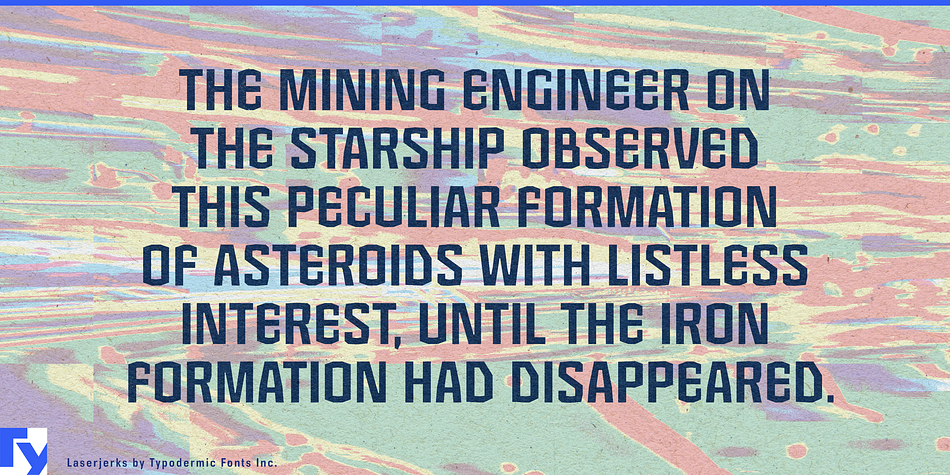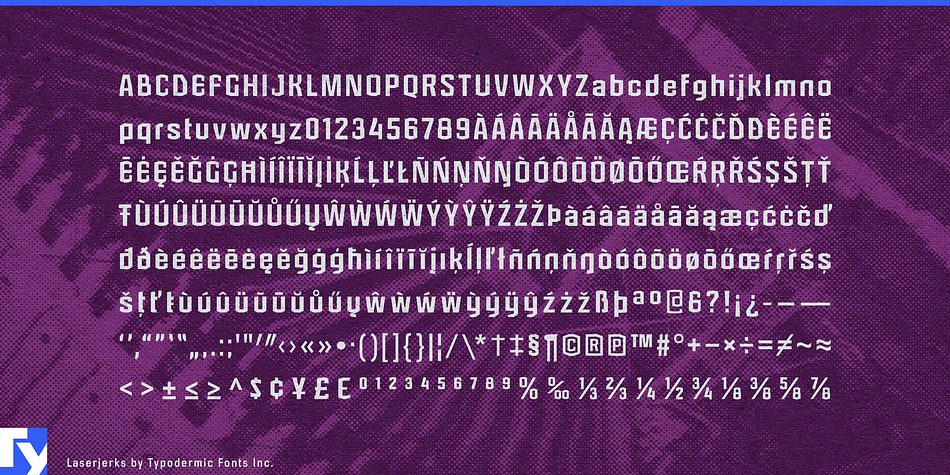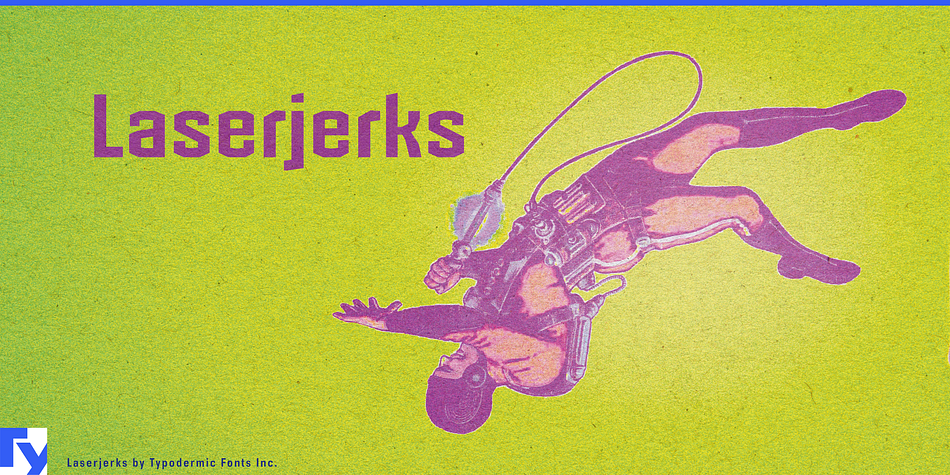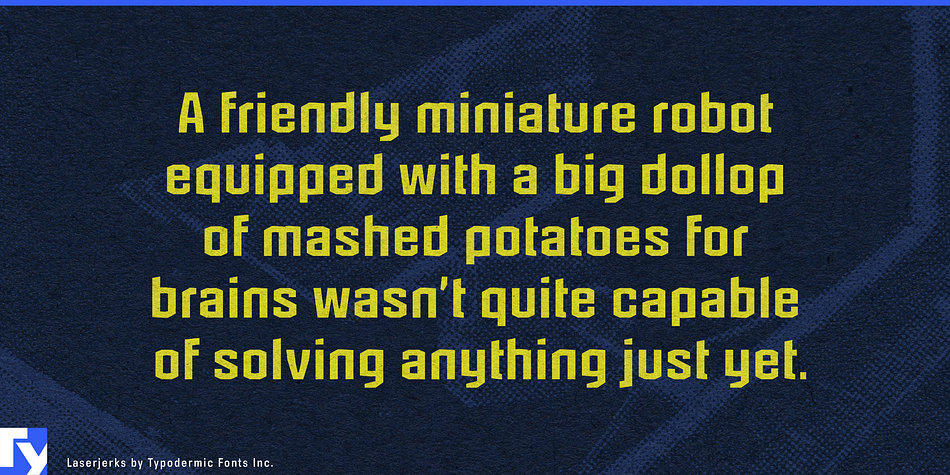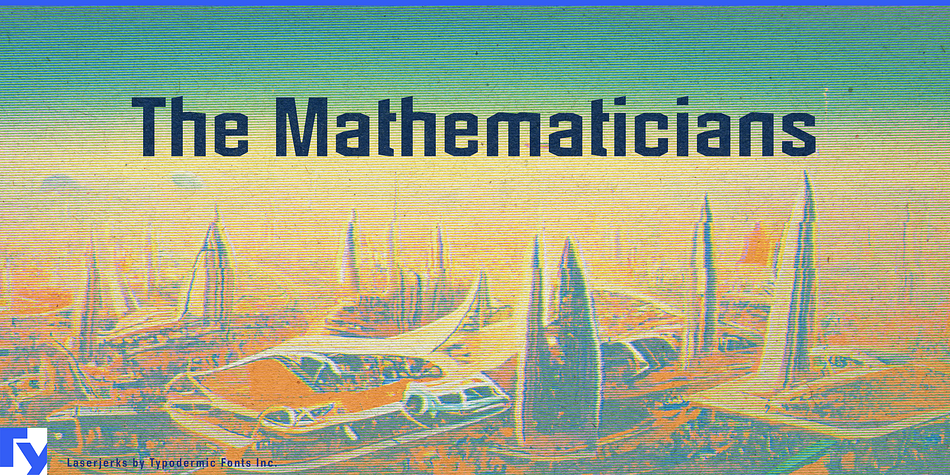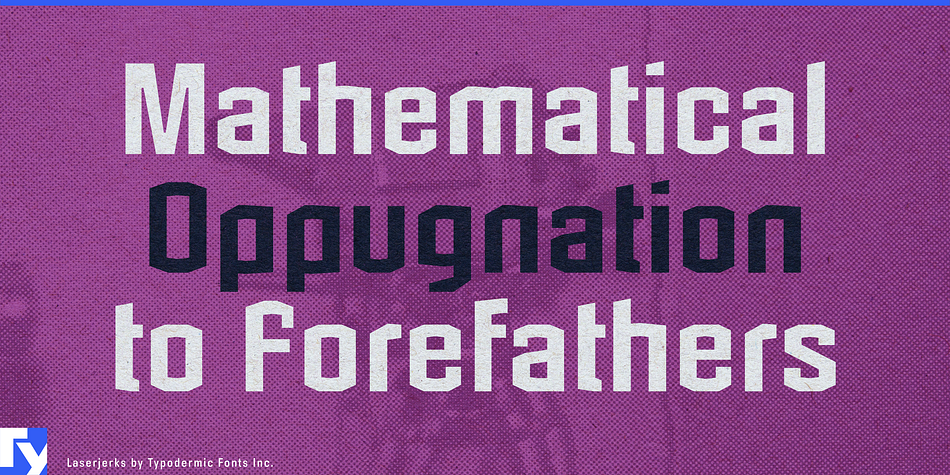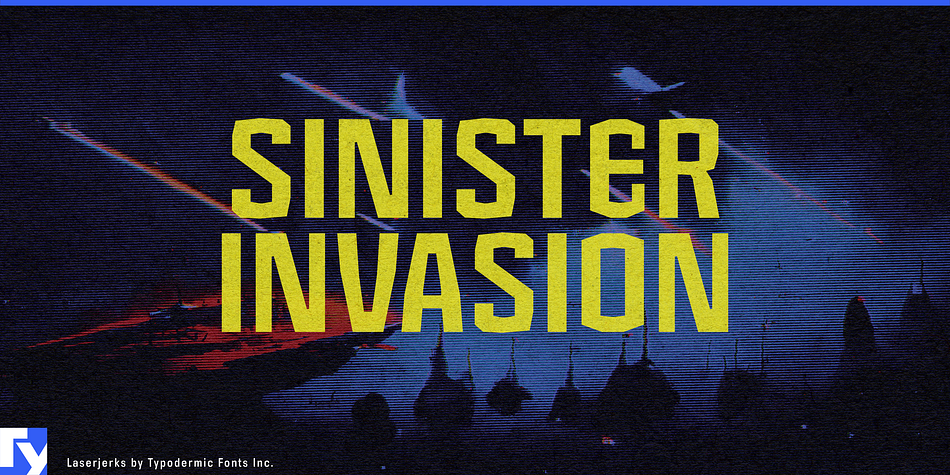
Laserjerks is a display font published by Typodermic Fonts Inc.
Laserjerks is a one-of-a-kind polygonal display typeface. This style, inspired by brutalist architecture, generates a sense of sharp geometric shadows and compressed alien alphabets. It will imbue your message with an otherworldly personality. Most Latin-based European writing systems are supported, including the following languages. Afaan Oromo, Afar, Afrikaans, Albanian, Alsatian, Aromanian, Aymara, Bashkir (Latin), Basque, Belarusian (Latin), Bemba, Bikol, Bosnian, Breton, Cape Verdean, Creole, Catalan, Cebuano, Chamorro, Chavacano, Chichewa, Crimean Tatar (Latin), Croatian, Czech, Danish, Dawan, Dholuo, Dutch, English, Estonian, Faroese, Fijian, Filipino, Finnish, French, Frisian, Friulian, Gagauz (Latin), Galician, Ganda, Genoese, German, Greenlandic, Guadeloupean Creole, Haitian Creole, Hawaiian, Hiligaynon, Hungarian, Icelandic, Ilocano, Indonesian, Irish, Italian, Jamaican, Kaqchikel, Karakalpak (Latin), Kashubian, Kikongo, Kinyarwanda, Kirundi, Kurdish (Latin), Latvian, Lithuanian, Lombard, Low Saxon, Luxembourgish, Maasai, Makhuwa, Malay, Maltese, Māori, Moldovan, Montenegrin, Ndebele, Neapolitan, Norwegian, Novial, Occitan, Ossetian (Latin), Papiamento, Piedmontese, Polish, Portuguese, Quechua, Rarotongan, Romanian, Romansh, Sami, Sango, Saramaccan, Sardinian, Scottish Gaelic, Serbian (Latin), Shona, Sicilian, Silesian, Slovak, Slovenian, Somali, Sorbian, Sotho, Spanish, Swahili, Swazi, Swedish, Tagalog, Tahitian, Tetum, Tongan, Tshiluba, Tsonga, Tswana, Tumbuka, Turkish, Turkmen (Latin), Tuvaluan, Uzbek (Latin), Venetian, Vepsian, Võro, Walloon, Waray-Waray, Wayuu, Welsh, Wolof, Xhosa, Yapese, Zapotec Zulu and Zuni.